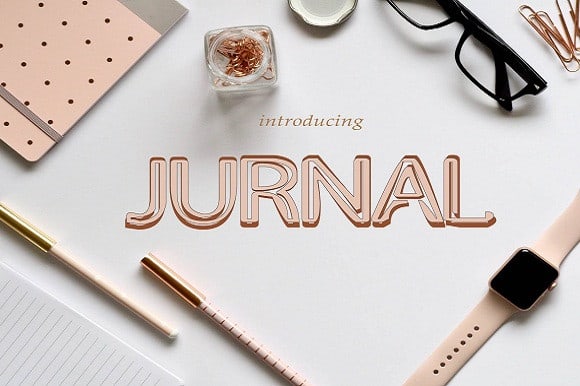
Jurnal Display Font is an incredibly unique and interesting display font. Add this font to your creative ideas and notice how it will make them stand out!
Jurnal font is great for: wedding invitations, fashion magazines, logos, signatures, and is suitable for watermark photography.
Features: – Style Alternatives – Binders – Style Sets